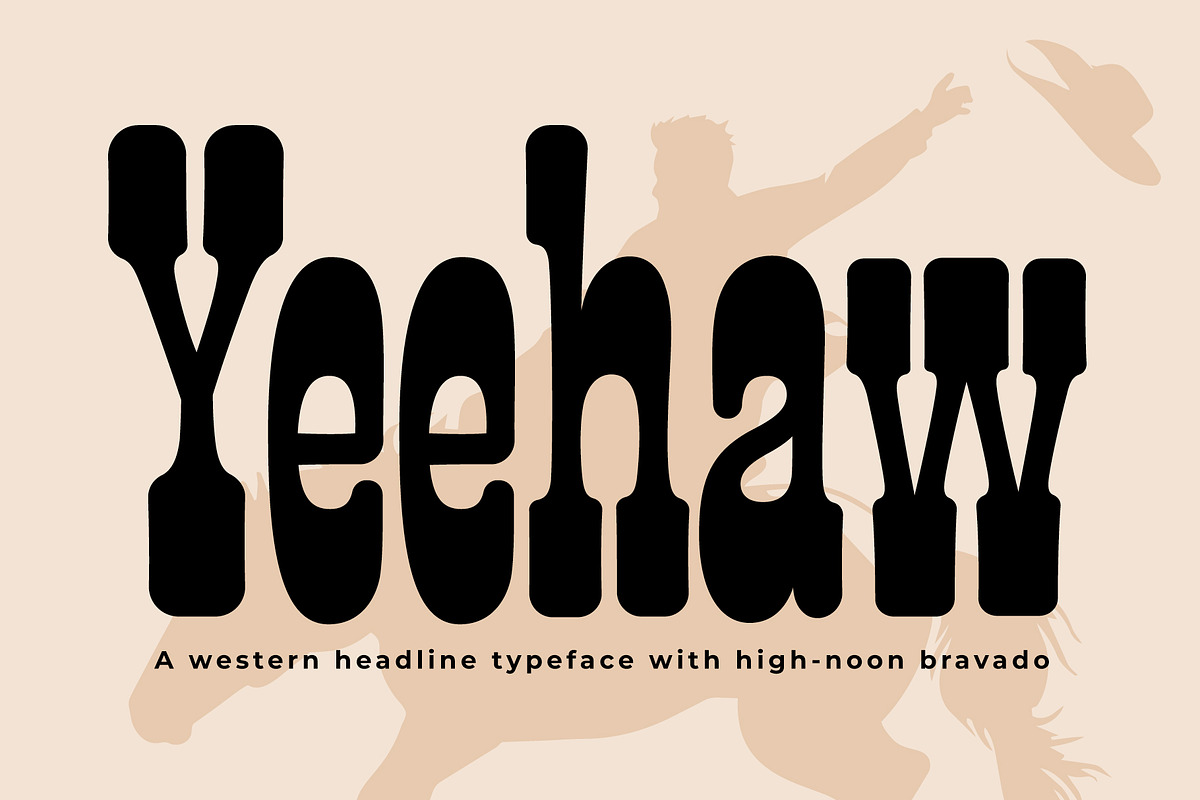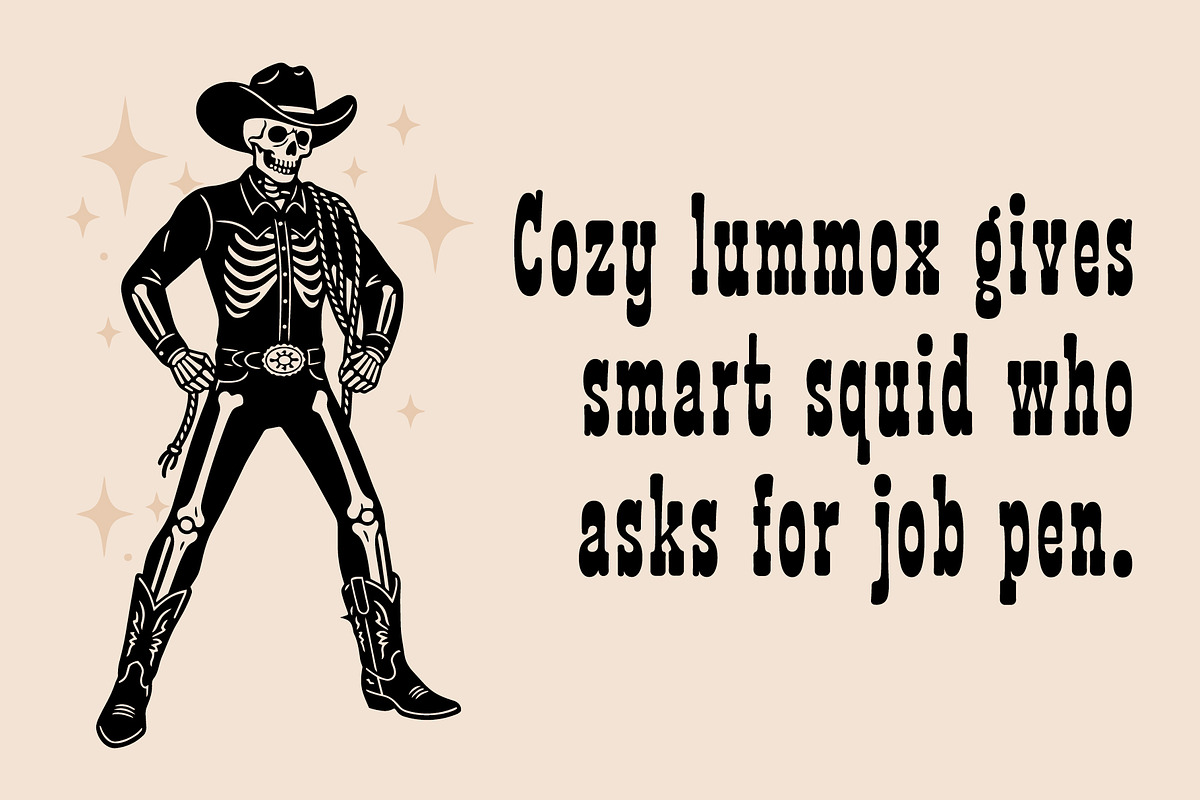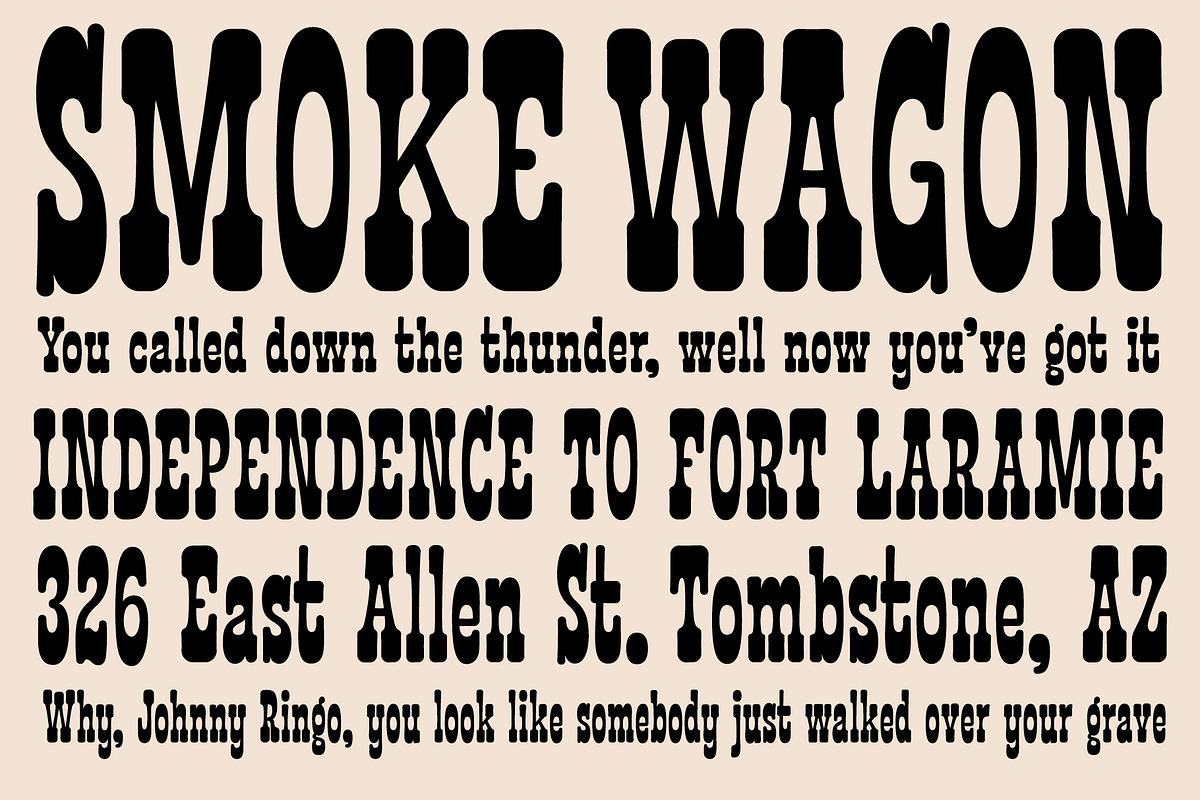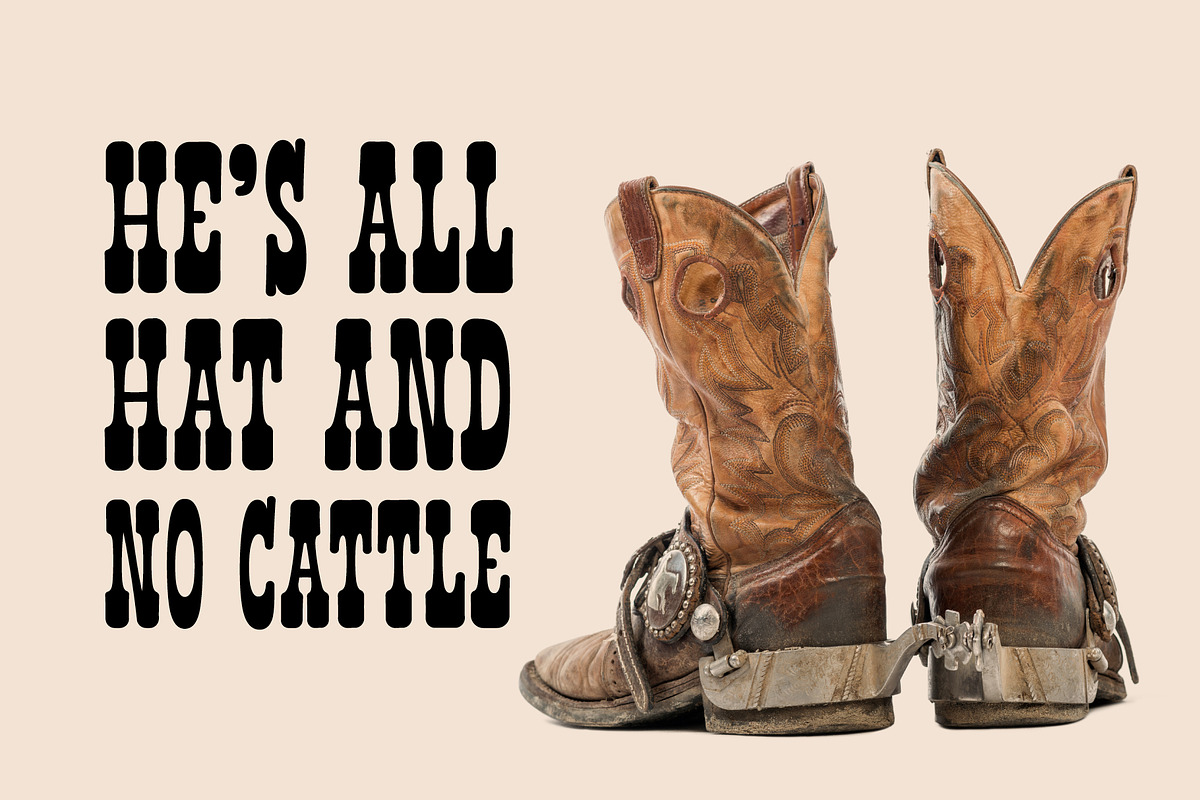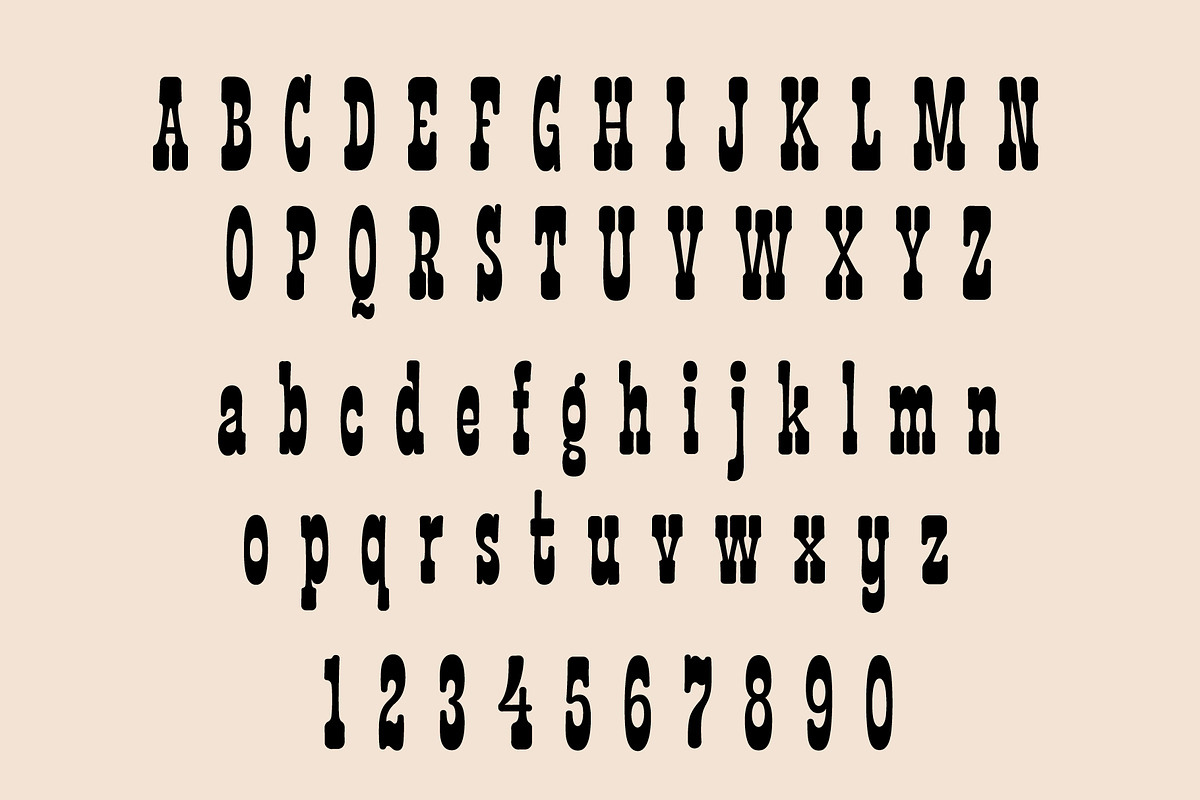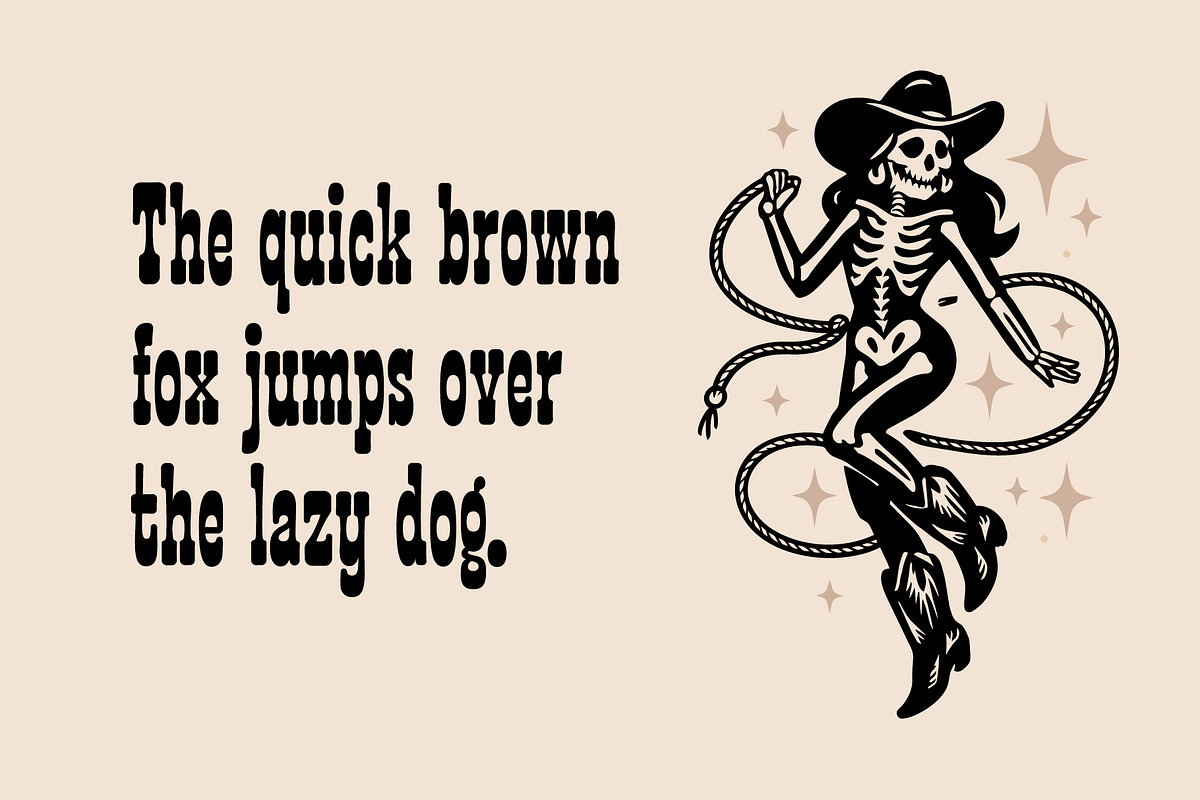
Yeehaw
Yeehaw is a bold western display typeface inspired by frontier signage, outlaw posters, and the unapologetic bravado of the American West. Its heavy letterforms, tight spacing, and exaggerated shapes are designed to command attention, making it ideal for large headlines and statement-driven layouts.
Built for posters, packaging, apparel, branding, and editorial use, Yeehaw thrives when it is loud, oversized, and set with confidence. The font channels the visual language of saloons, wanted posters, rodeo flyers, and hand-painted storefront signs, giving modern projects an authentic western edge without feeling gimmicky.
Yeehaw is well suited for western themes, vintage-inspired designs, music merchandise, event posters, labels, logos, and bold branding applications. It includes uppercase and lowercase letters, numerals, and basic punctuation, providing flexibility while staying true to its rugged character.
Includes uppercase, lowercase, numerals, and basic punctuation.